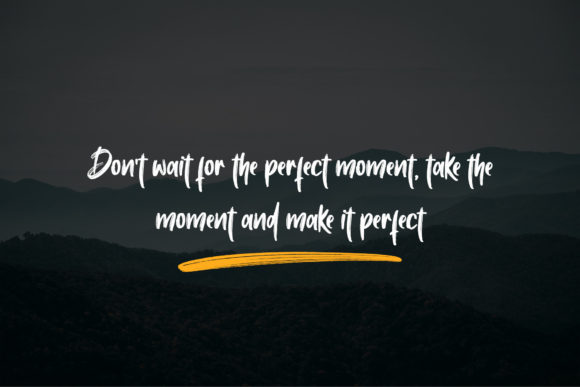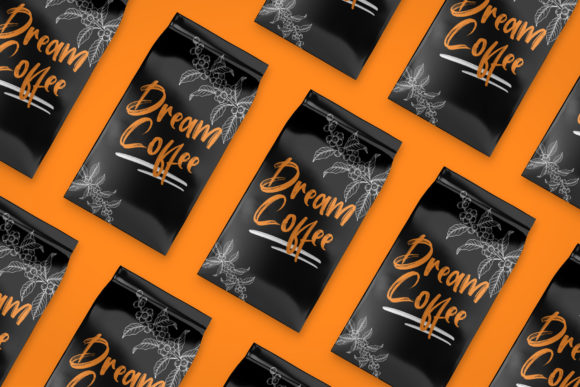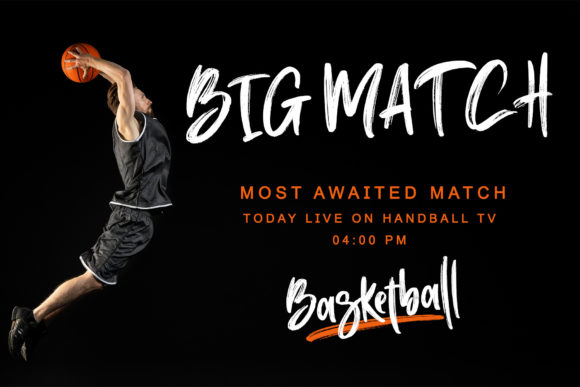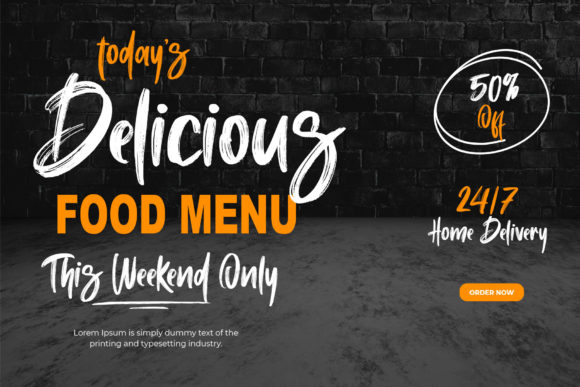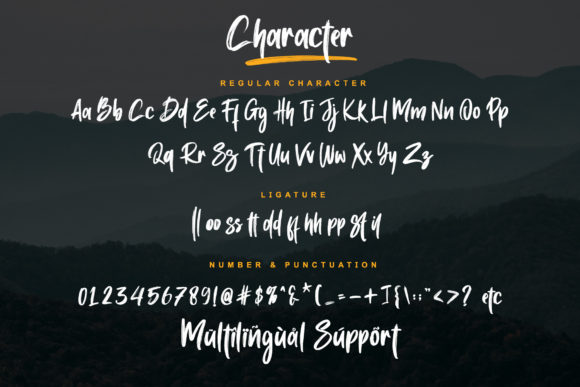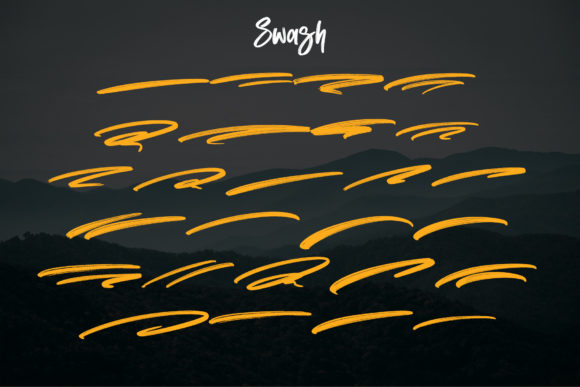
Introducing Chollistio Font: The Epitome of Elegance and Charm
Are you a designer or crafter on the lookout for a font that exudes elegance and charm? Look no further than Chollistio Font. This exquisite font is perfect for creating stunning wedding invitations, thank you cards, quotes, greeting cards, logos, business cards, and more. In this article, we’ll dive into the world of Chollistio Font and explore its features, benefits, and uses.
A Font that Speaks Elegance and Charm
Chollistio Font is a masterpiece that seamlessly blends elegance and charm. Its unique design makes it an ideal choice for projects that require a touch of sophistication and whimsy. Whether you’re working on a wedding invitation, a logo, or a business card, Chollistio Font is sure to make a lasting impression.
One of the standout features of Chollistio Font is its versatility. It can be used for a wide range of projects, including:
- Wedding invitations: Create stunning wedding invitations that set the tone for the big day.
- Thank you cards: Express your gratitude with beautifully designed thank you cards.
- Quotes: Add a touch of elegance to your quotes and make them stand out.
- Greeting cards: Create heartfelt greeting cards for special occasions.
- Logos: Use Chollistio Font to create a logo that exudes elegance and sophistication.
- Business cards: Make a lasting impression with beautifully designed business cards.
Chollistio Font is PUA (Private Use Area) encoded, which means you can access all the glyphs and swashes with ease. This feature makes it easy to customize your projects and add a personal touch. With PUA encoding, you can:
- Access a wide range of glyphs and swashes.
- Easily customize your projects.
- Add a personal touch to your designs.
Chollistio Font offers a range of benefits for designers and crafters, including:
- Elegant and charming design.
- Versatility for use in various projects.
- PUA encoding for easy access to glyphs and swashes.
- Easy customization.
- High-quality design for professional-looking projects.
Tips for Using Chollistio Font
To get the most out of Chollistio Font, here are some tips:
- Experiment with different sizes and styles to find the perfect fit for your project.
- Use the glyphs and swashes to add a personal touch to your designs.
- Pair Chollistio Font with other fonts to create a unique and interesting combination.
- Use Chollistio Font for headlines, titles, and other display text to add a touch of elegance.
Chollistio Font is a stunning addition to any designer’s or crafter’s collection. Its elegant and charming design, versatility, and PUA encoding make it an ideal choice for a wide range of projects. Whether you’re working on a wedding invitation, a logo, or a business card, Chollistio Font is sure to make a lasting impression. So why wait? Get your hands on Chollistio Font today and take your designs to the next level!